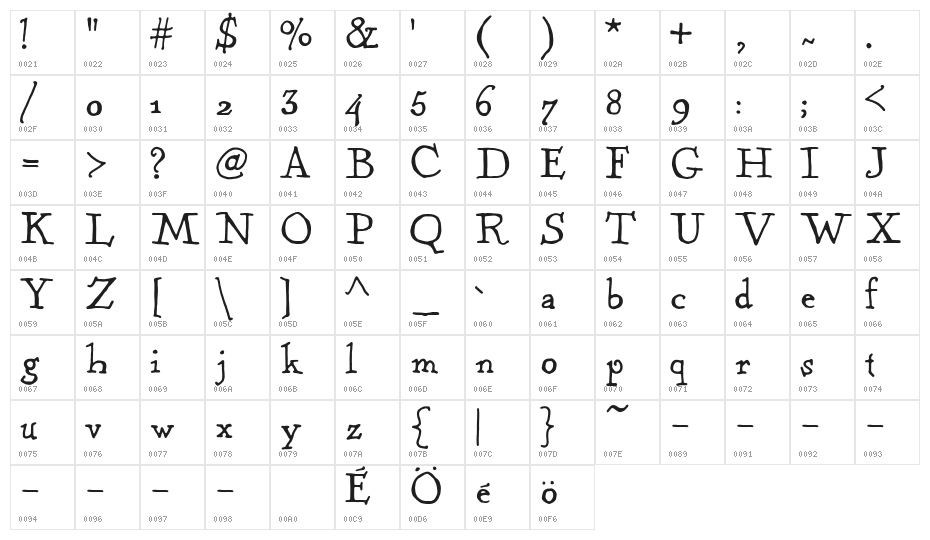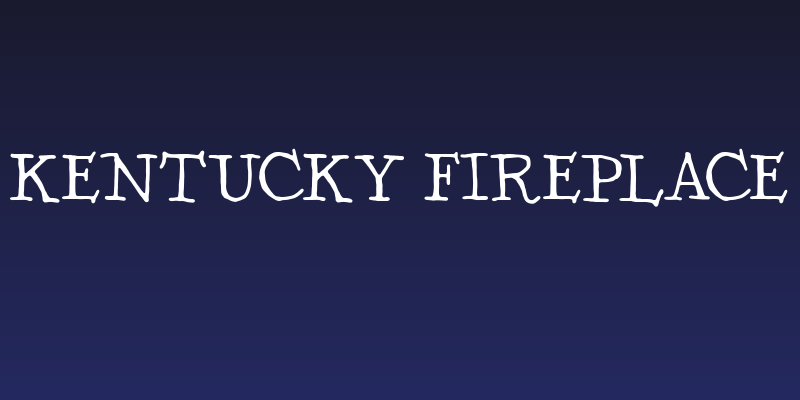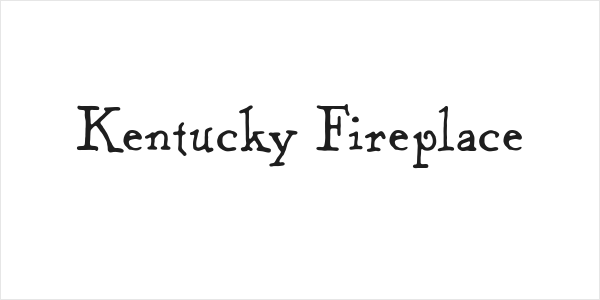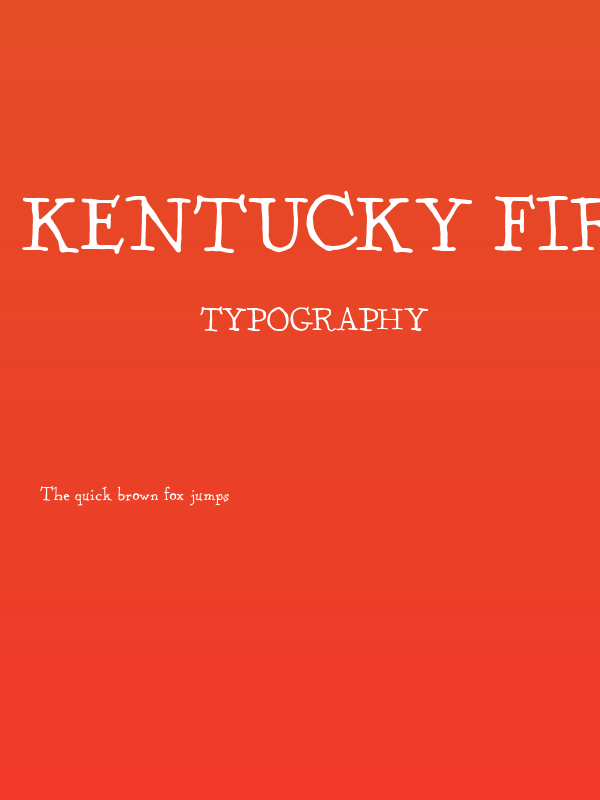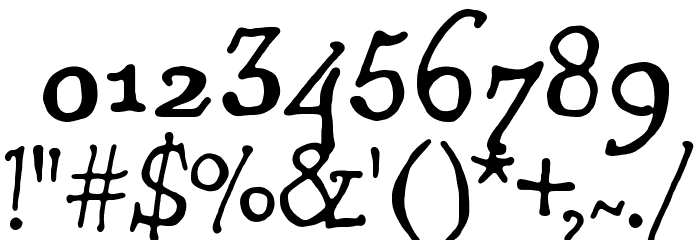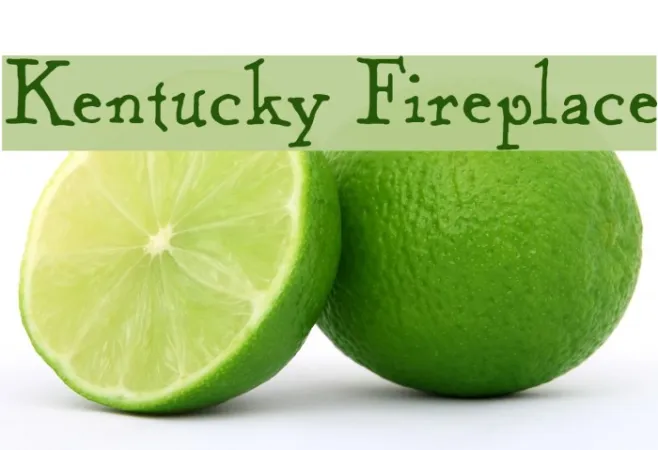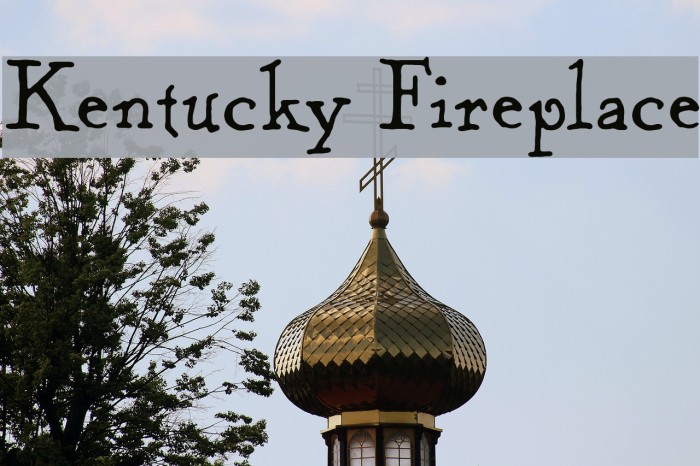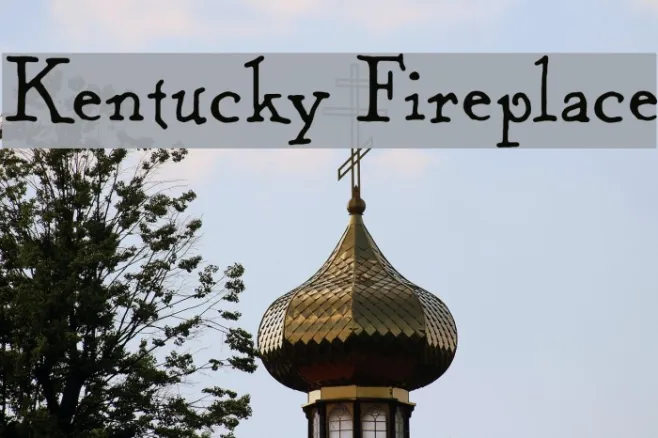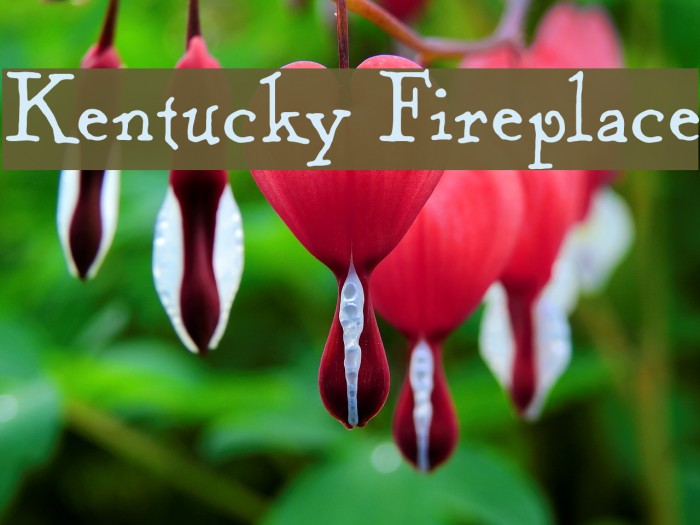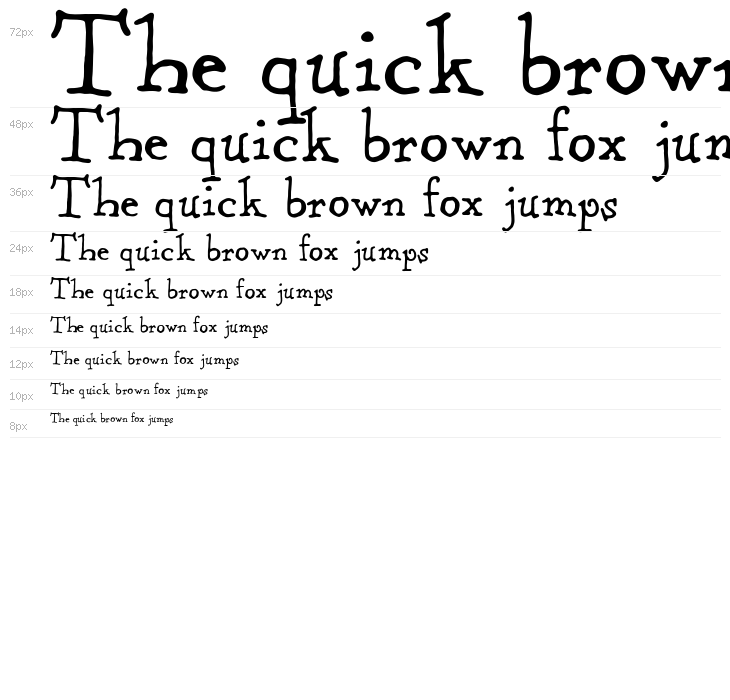
Kentucky Fireplace Font
Kentucky Fireplace Description
This font features a whimsical and playful design with uneven strokes and a hand-drawn appearance. The characters have a slightly irregular baseline, adding to its casual and informal style. The uppercase letters are bold and prominent, while the lowercase letters maintain a consistent flow with rounded edges. Numbers are equally playful, with a unique charm that complements the alphabet. Special characters are creatively designed, maintaining the overall quirky aesthetic. This font is perfect for projects that require a touch of personality and creativity.
| Proposed Projects | Ideal for children's books, creative posters, greeting cards, and playful branding. |